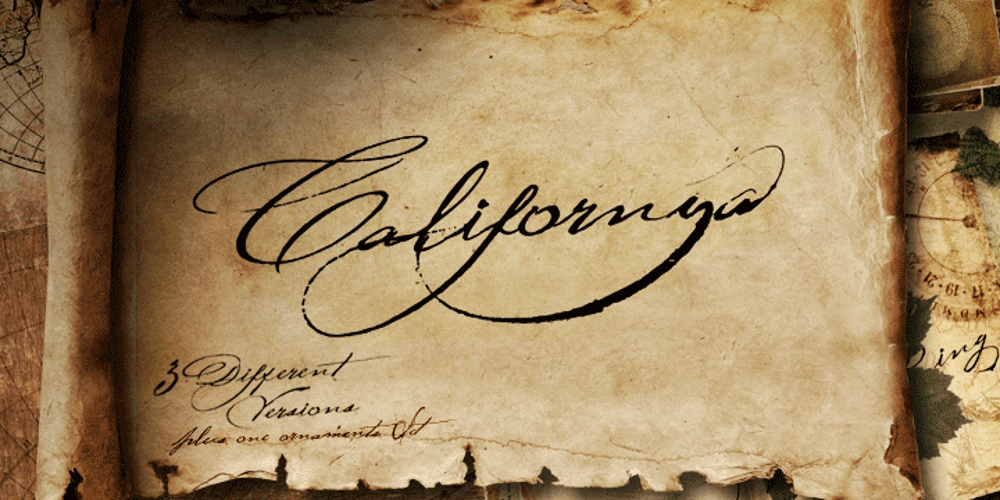
Californya Font Family was designed by Germán Olaya and published by Typo5. Californya contains 16 styles and family package options. Californya is based on several manuscripts from 16th century, and completely reinterpreted with a vast series of characters drawn by hand. Each character is full of rich details, capturing the expression and style of a true calligraphy. It will add real Passion to anything you write. It comes in 4 different versions: 1. Californya A 2. Californya B 3. Californya C 4. Californya Xtensions (containing a series of ornaments, ligatures and ink swashes) Each version comes in Regular and Bold style, for a total of 8 fonts. You can combine characters between versions to get a vast range of possibilities and beautiful words.